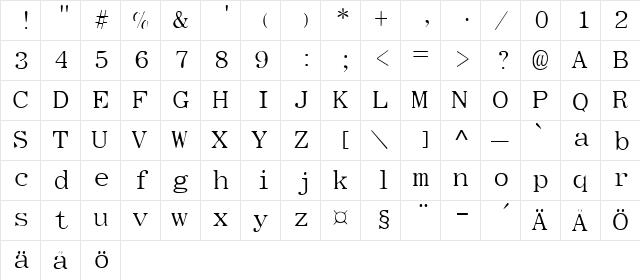
Type Wheel Regular
Design Context for Type Wheel Typeface
Type Wheel takes a measured approach to typography — its balanced proportions and neutral character make it a reliable workhorse for both digital and print work.
Pro Tip: Use Type Wheel in both headline and body roles to test its range before committing to a single application.